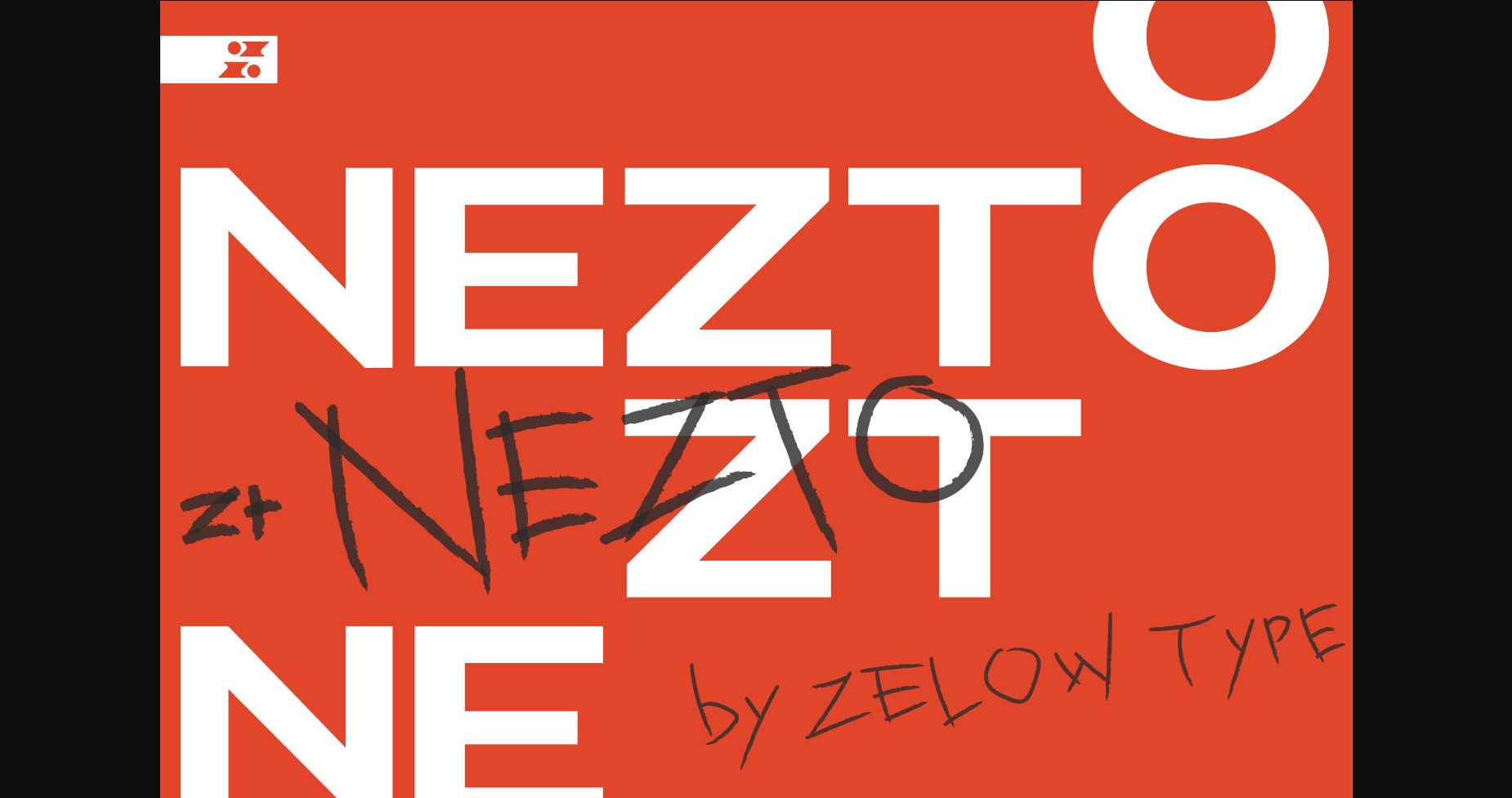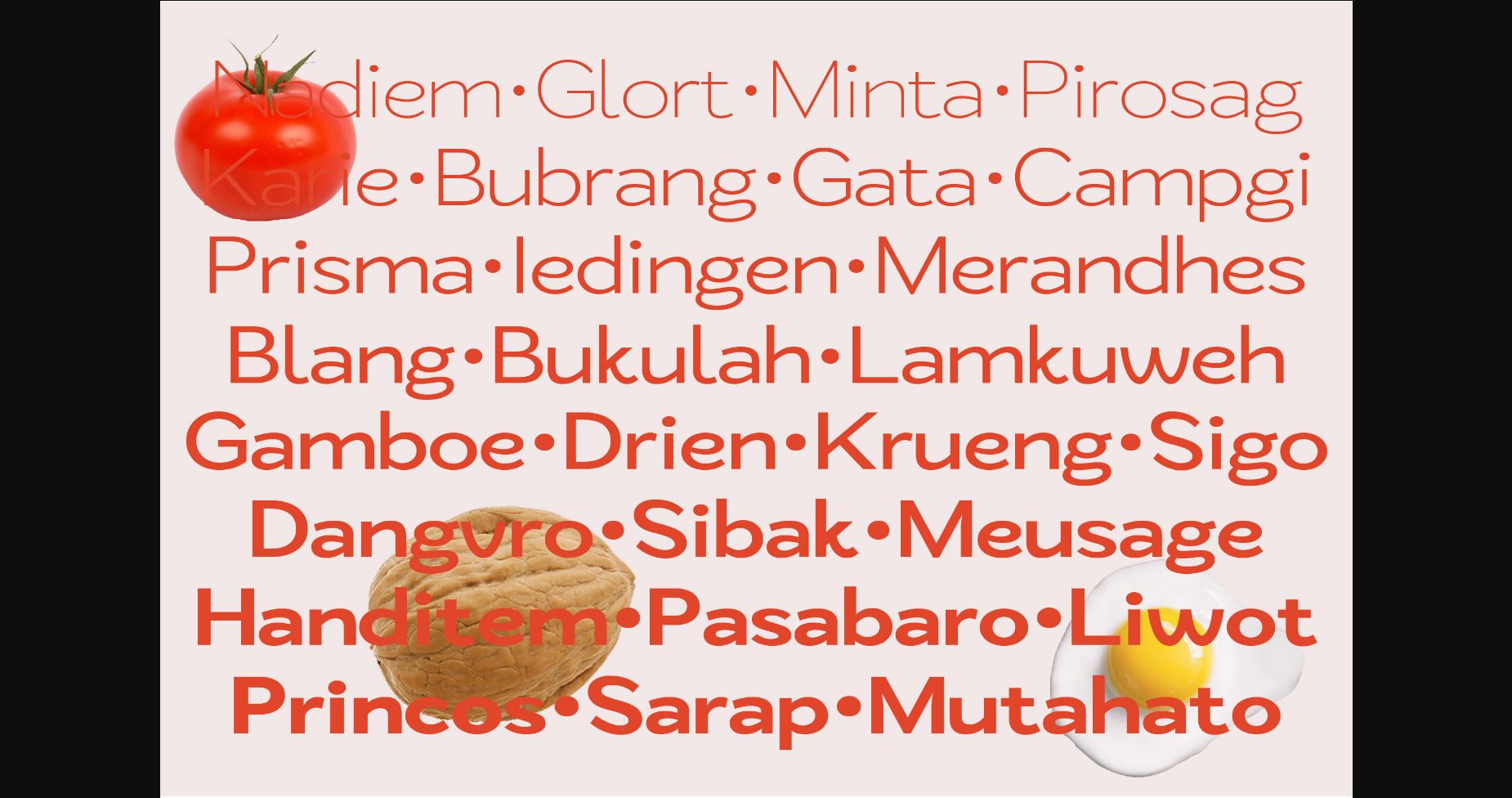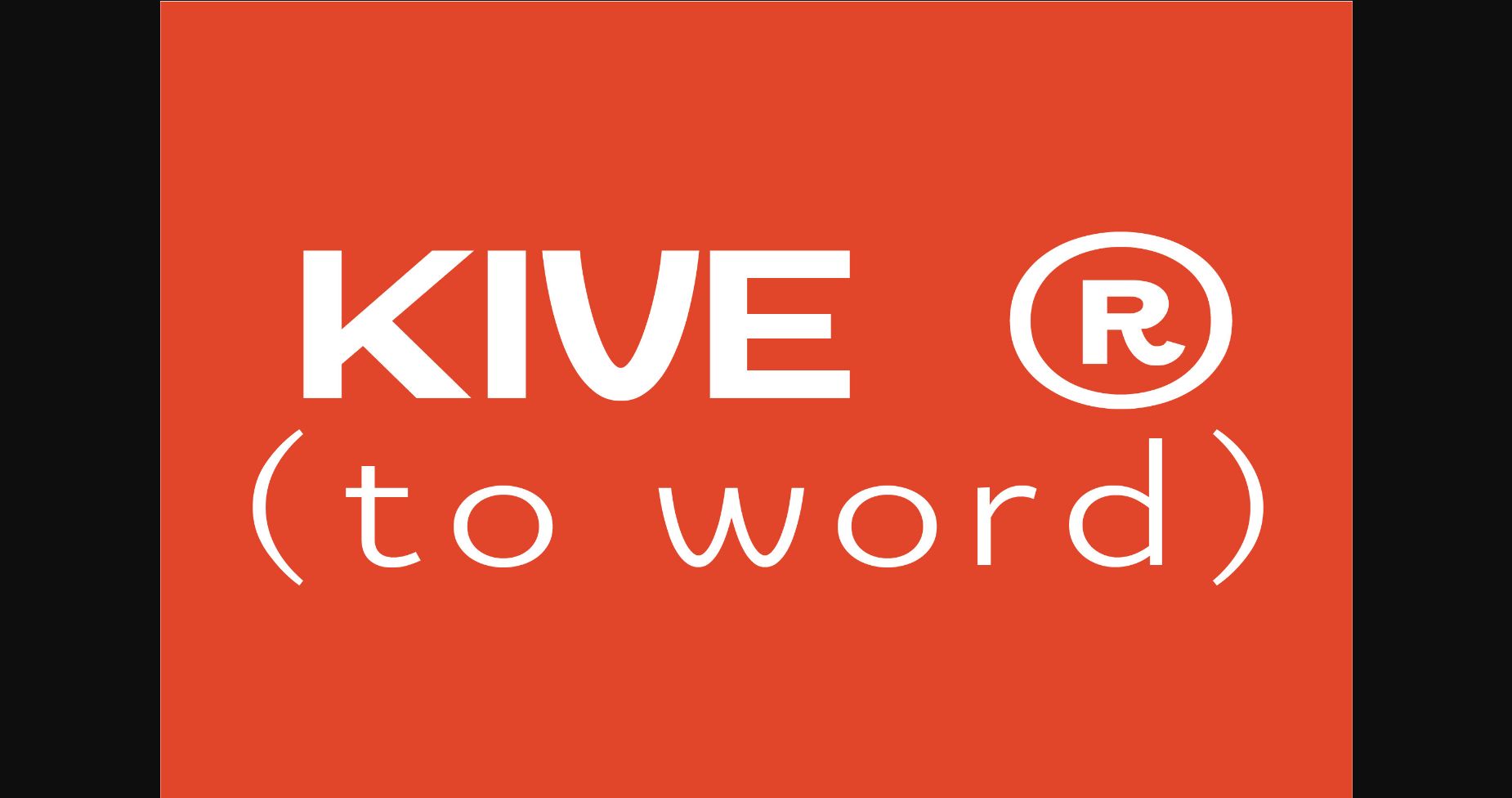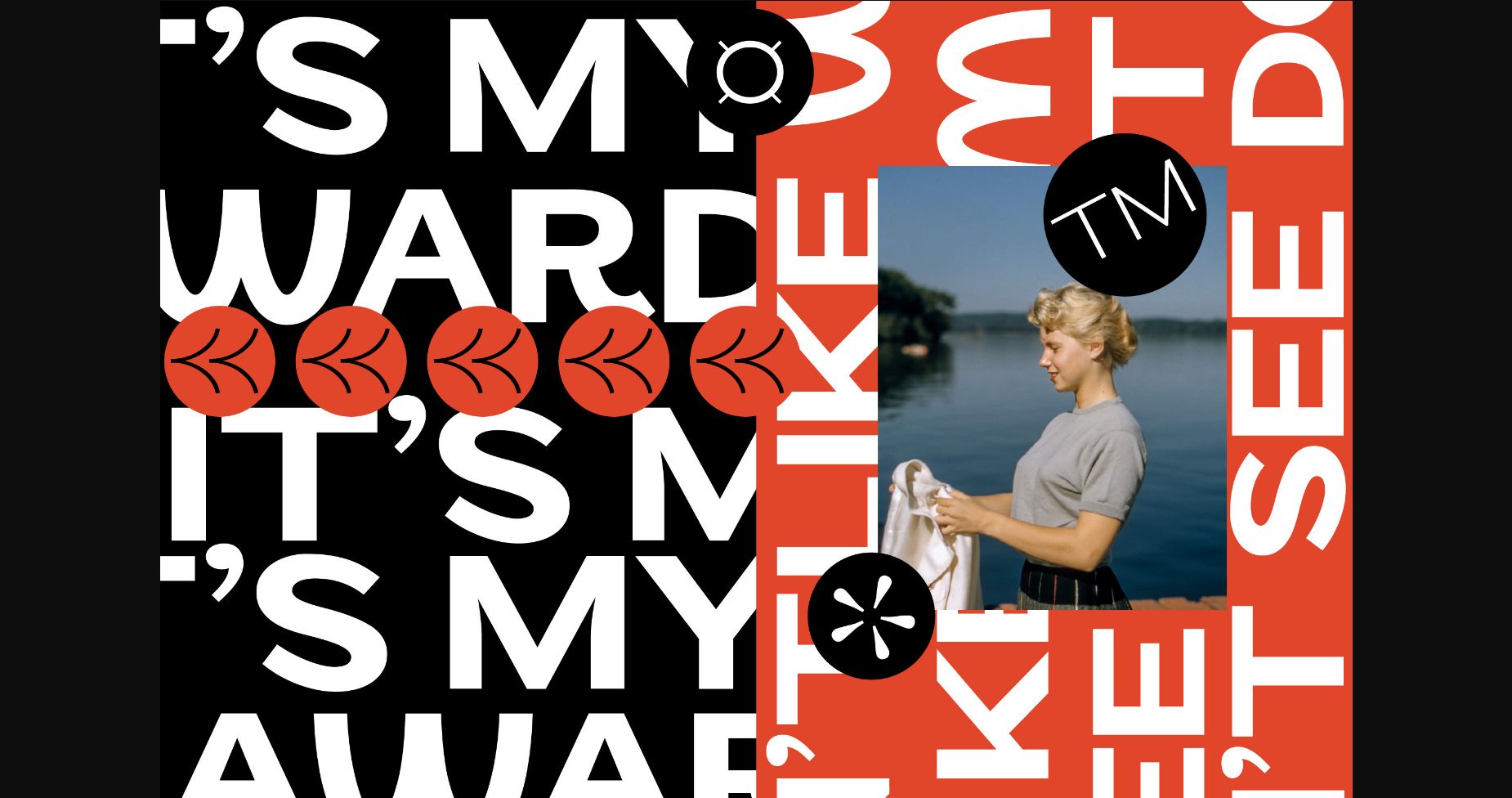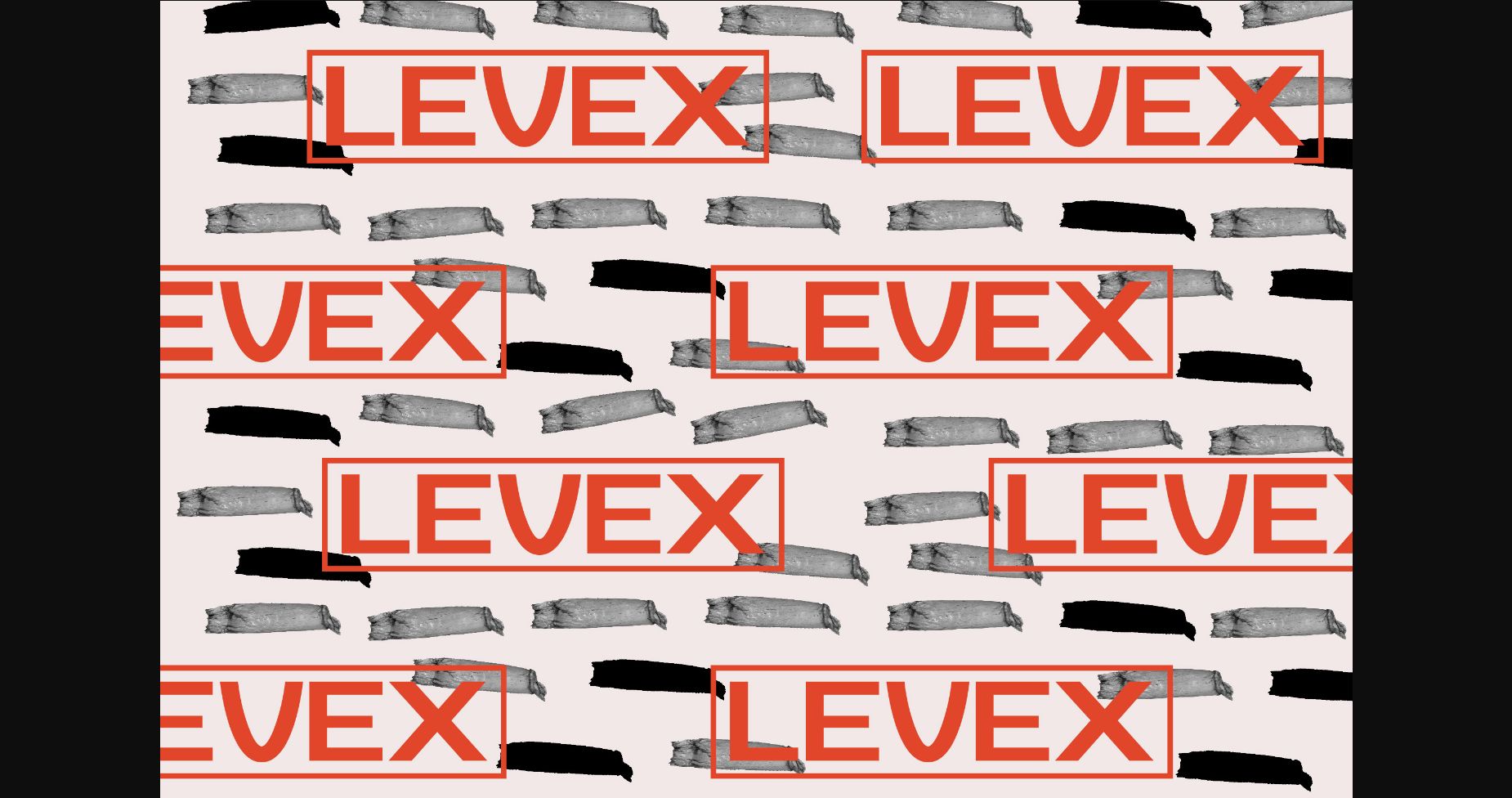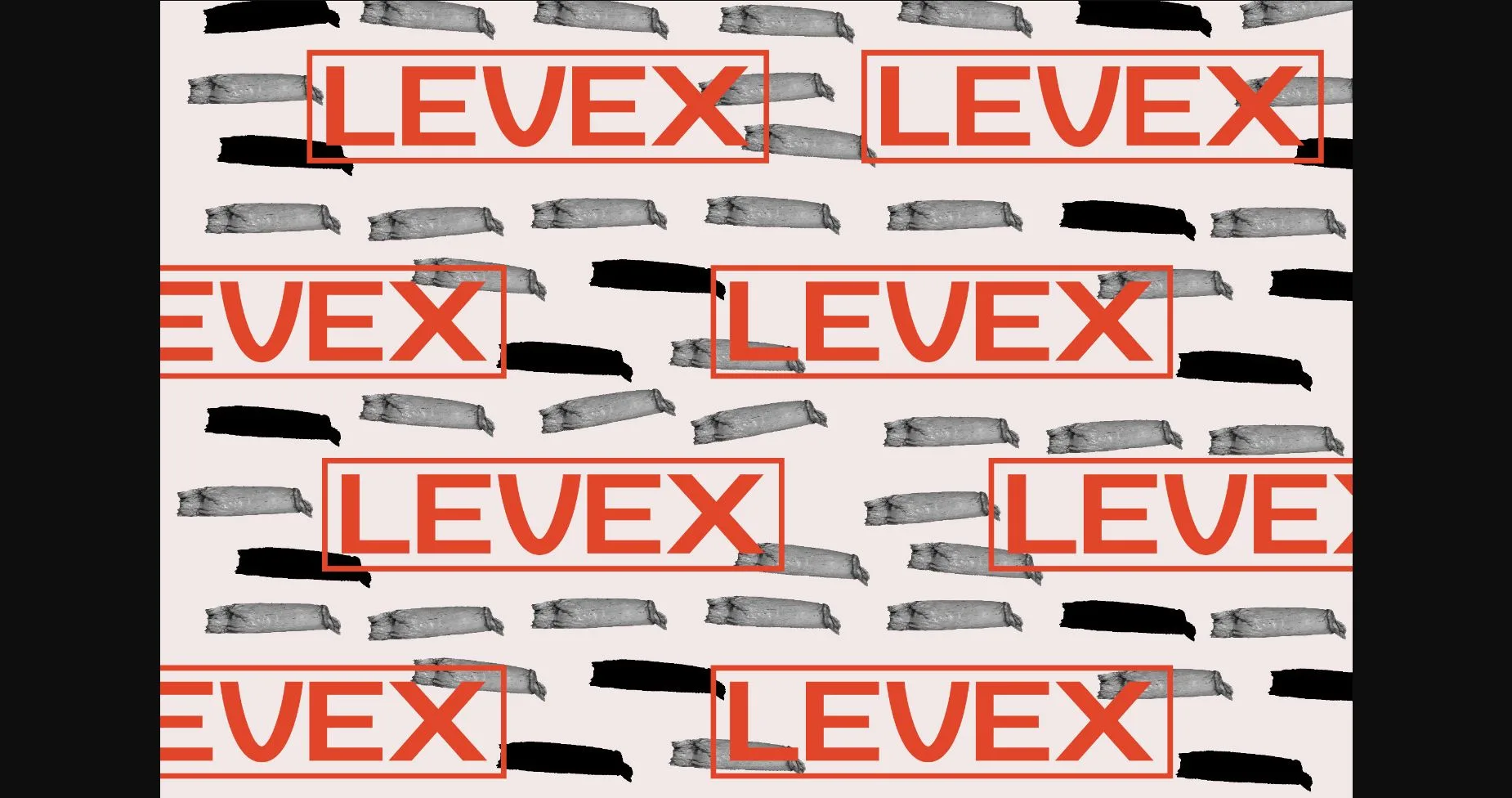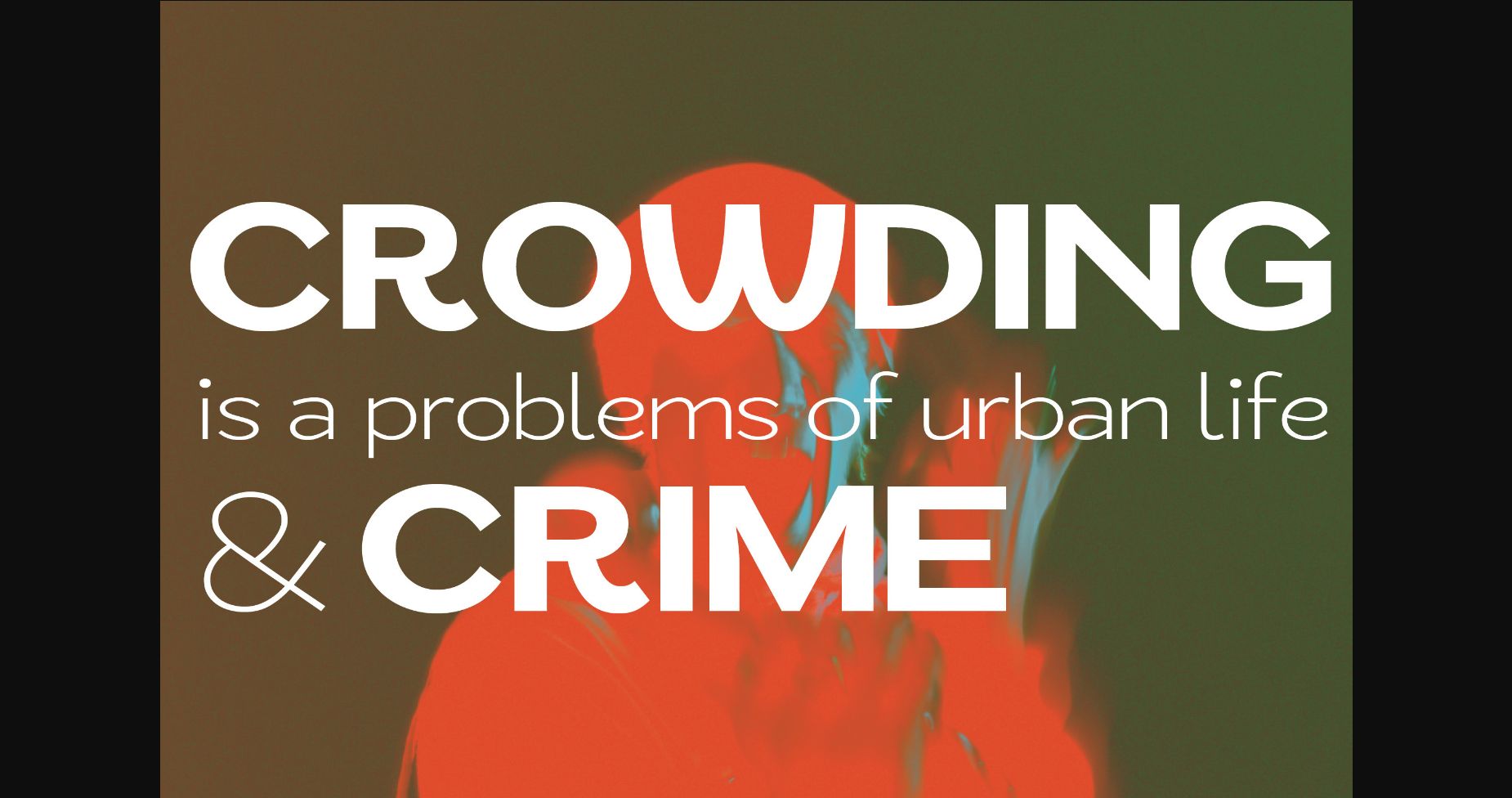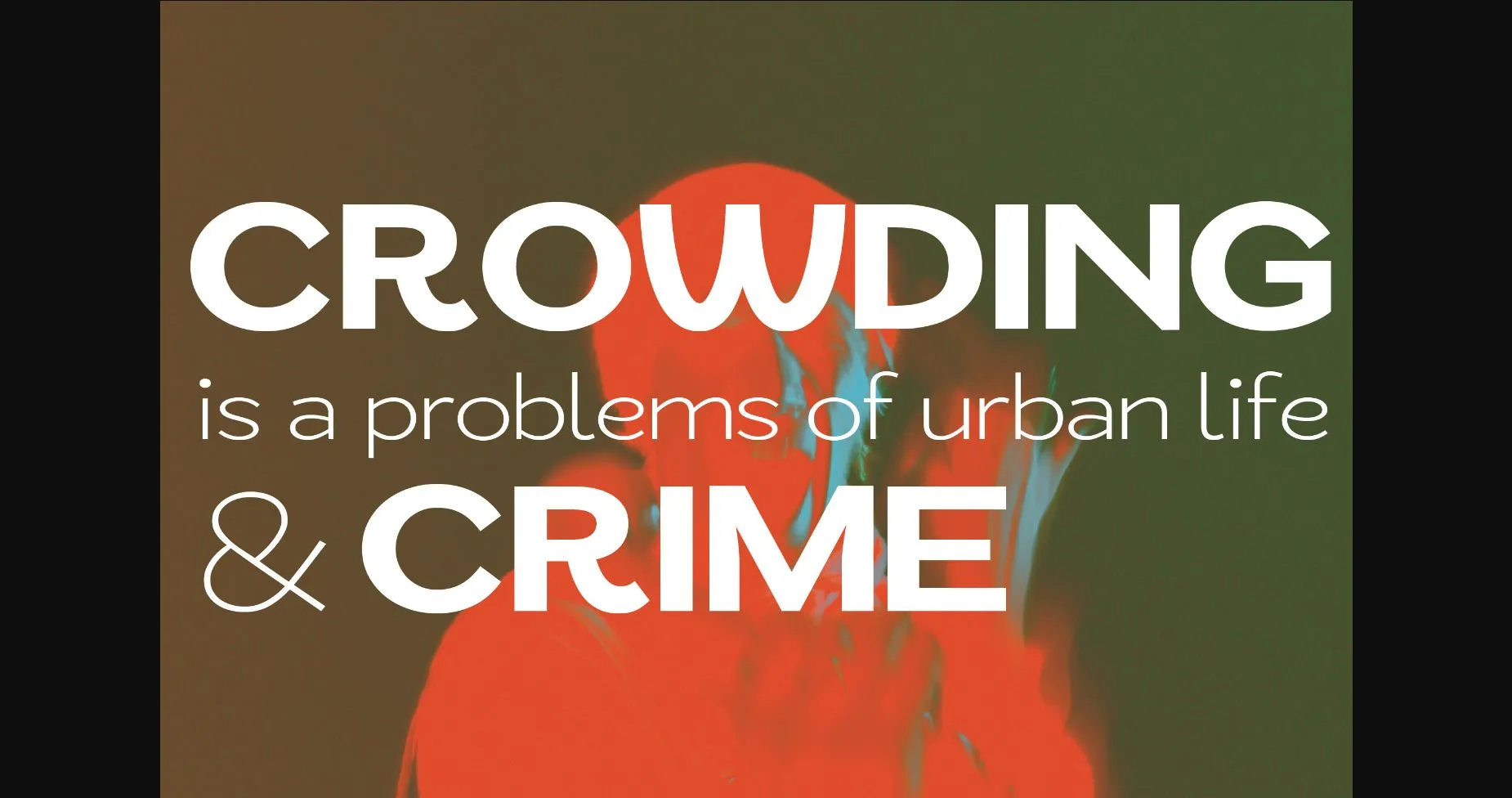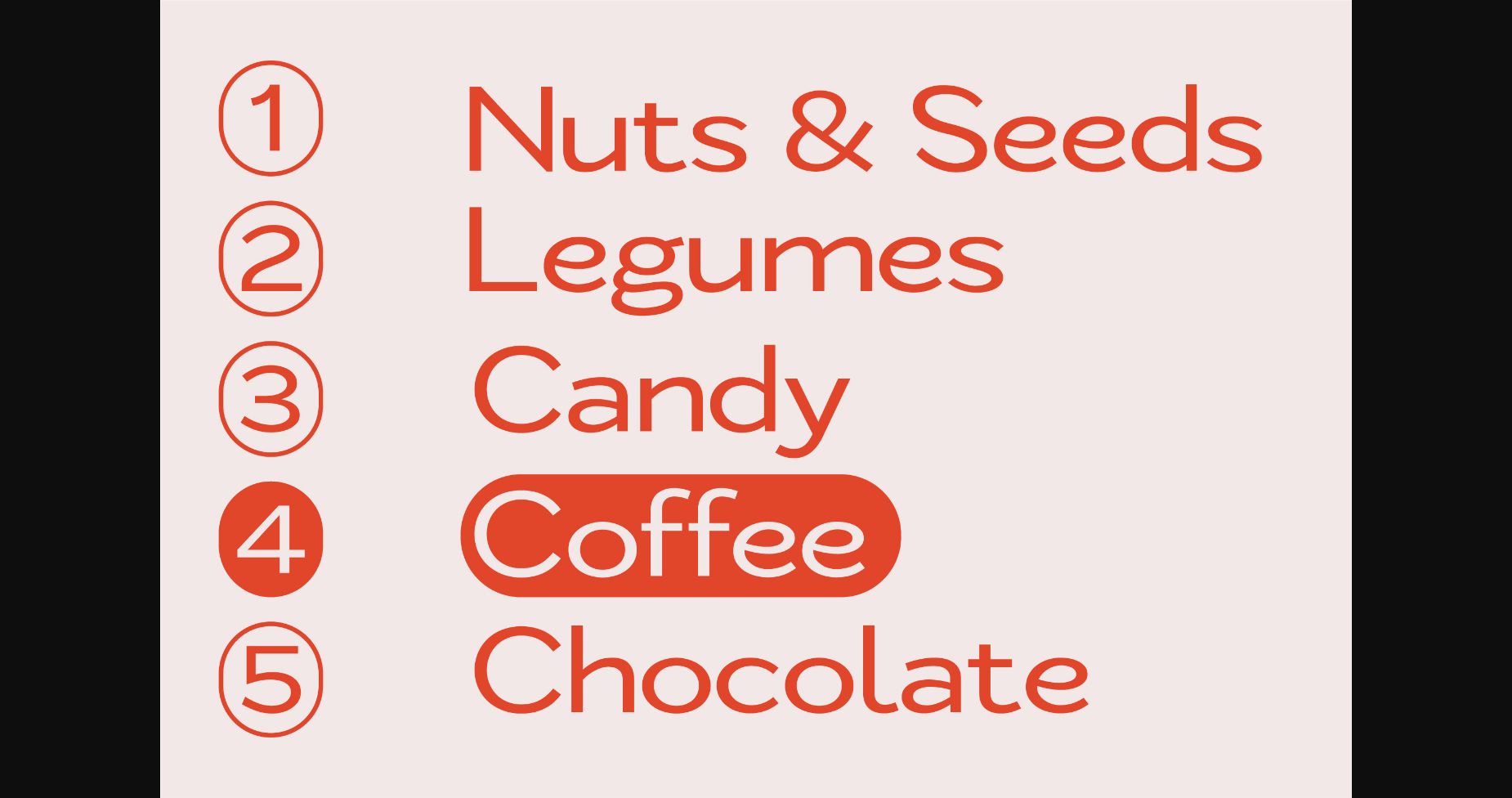
Zt Nezto is a cool and assertive sans serif font. It is perfect for product packaging, branding project, magazine covers, social media, wedding, or just used to express words above the background.